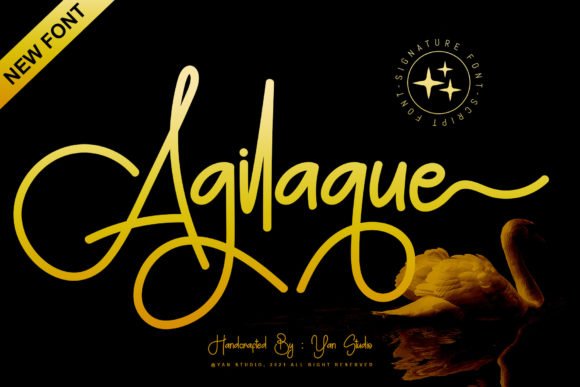
Introduction to Agilaque Font
Agilaque is an elegant script font with a contemporary atmosphere and impeccable form, inspired by timeless classic calligraphy.
Not too thin and not too thick, balanced and varied, this font was designed to enhance the beauty of your projects .